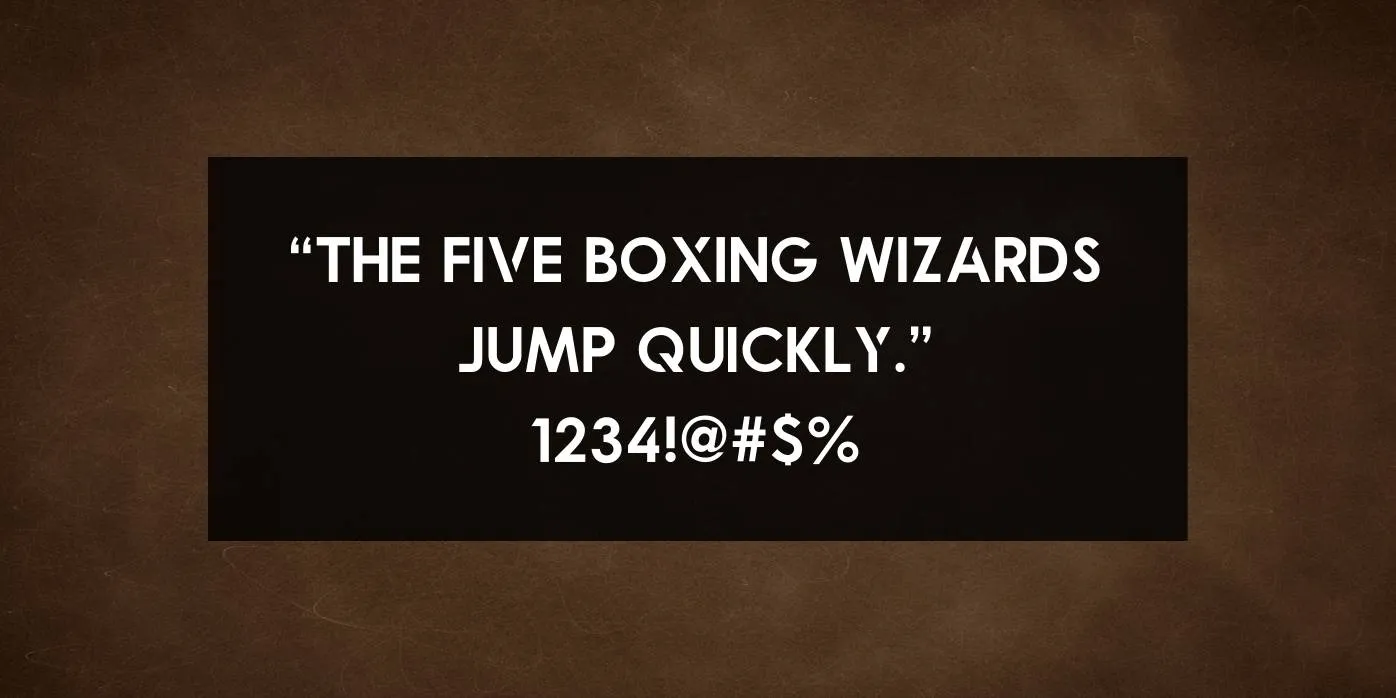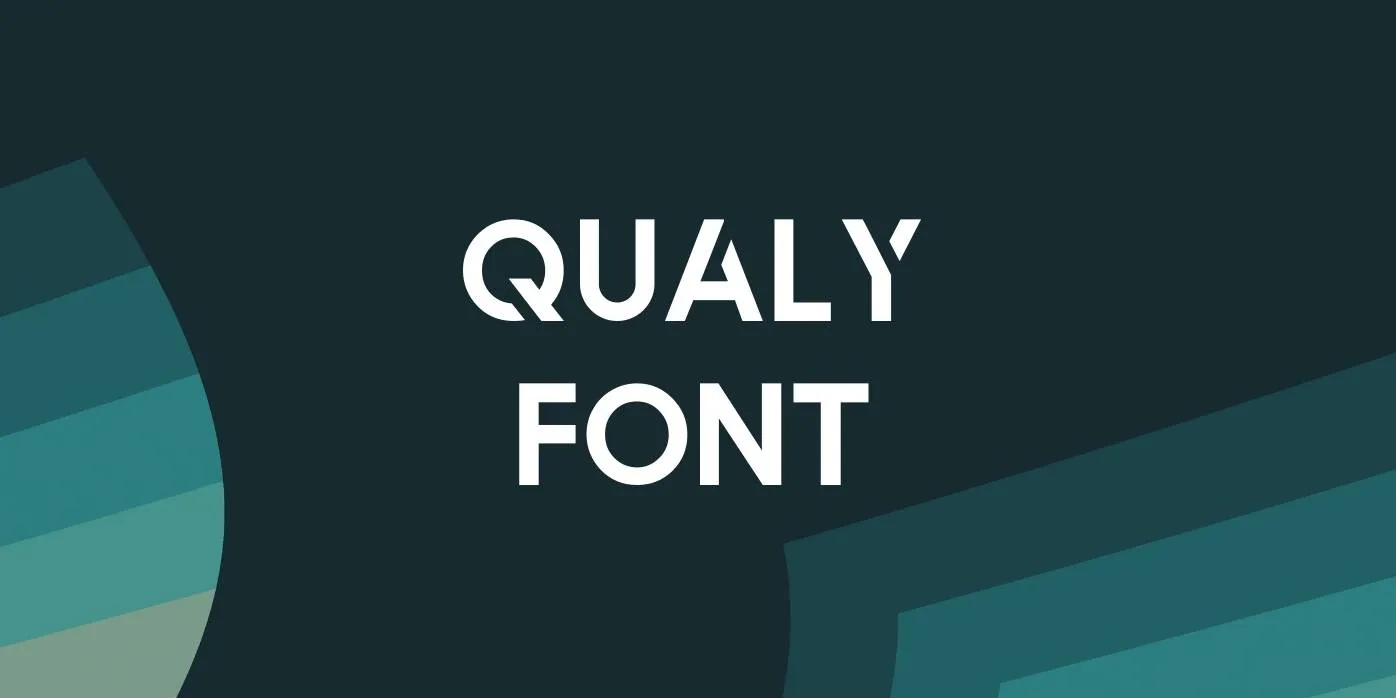
Qualy Font
Qualy Font is a stylish typeface that belongs to the sans serif family. This typeface was designed by Creative Killer. It is available in three different weights- light, regular and bold. This stylish font has a unique design that makes it stand out from other sans serif typefaces.
This family consists of unique styles which will make your text look stylish. The Qualy Font is perfect for both display and body text. It can be used for a wide variety of projects such as branding, web design, advertising, and more. The copy and paste function of this family is very classic.
You can also use sofia pro font which is closest to this font family. If you are looking for a sans serif typeface that is both stylish and unique, then the Qualy Font is the perfect choice for your designs. The generator tool of this family is suitable for various designs.